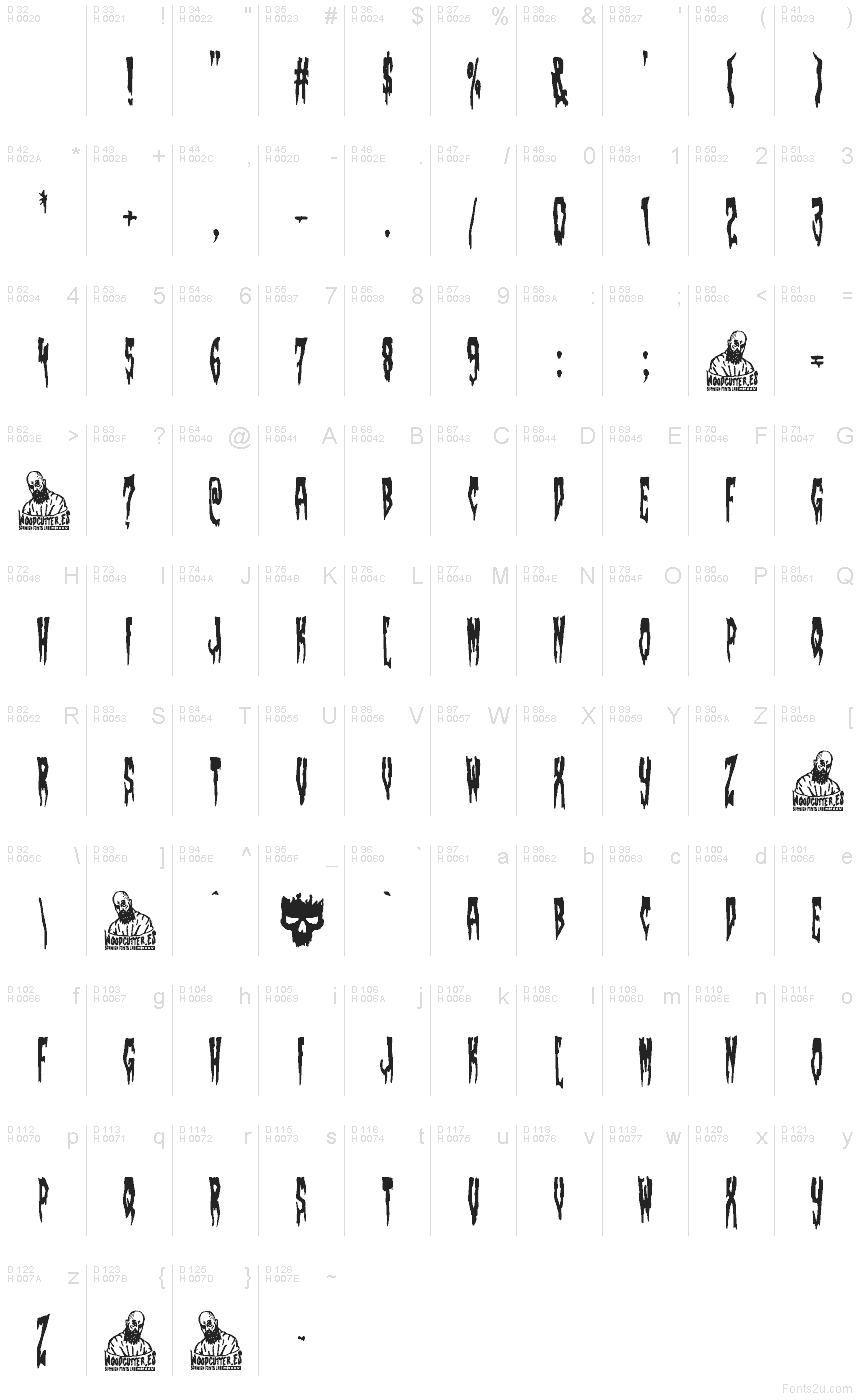
Eternal Darkness
Eternal Darkness font by Woodcutter is a free scary display font. Its defining trick is the way each letter looks clawed from shadow—tall, ragged forms with stalactite drips and a wet, inky edge. The rhythm feels stretched and breathless, so words read like a creeping hiss rather than a shout, making even short titles feel ominous and cinematic.
Using Eternal Darkness, headlines instantly set a horror mood for posters, haunted attraction ads, slasher film titles, escape-room branding, Halloween merch, and metal band logos. This free font shines at big sizes on high-contrast backgrounds; keep copy brief. Pair it with a clean condensed sans for credits and dates to sharpen the scare.